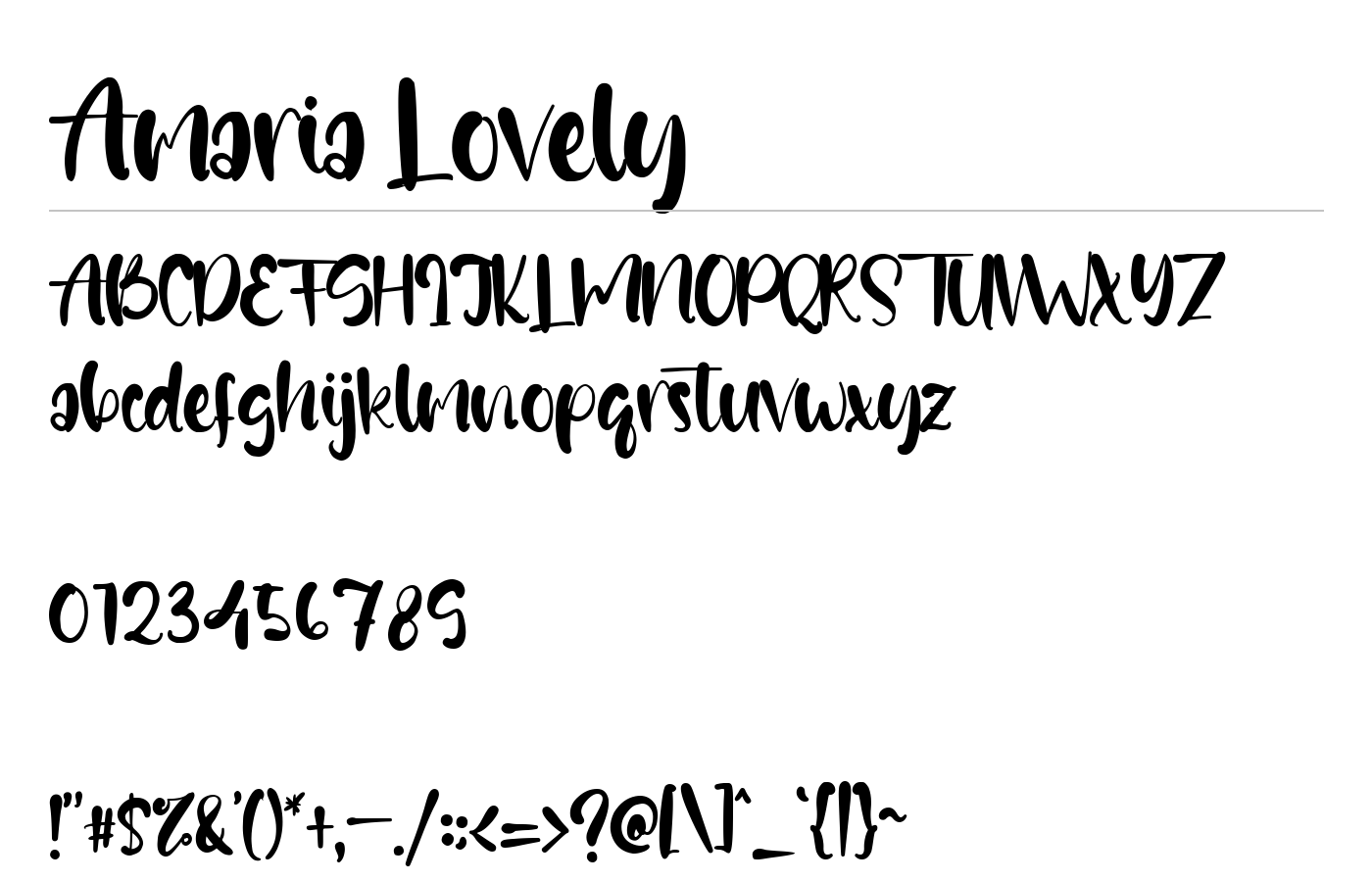
Amaria Lovely is a playful and charming handwritten script font with a casual, brush-like feel. It features smooth, rounded strokes with varying thickness, giving it a lively and friendly personality perfect for creative, youthful designs such as invitations, branding, and social media graphics. Its whimsical, organic style makes it an excellent choice for projects that seek warmth and approachability while maintaining an artistic flair.
Amaria Lovely Font
About Amaria Lovely Font
| Font family | Amaria Lovely Font |
| Designer | VZtype |